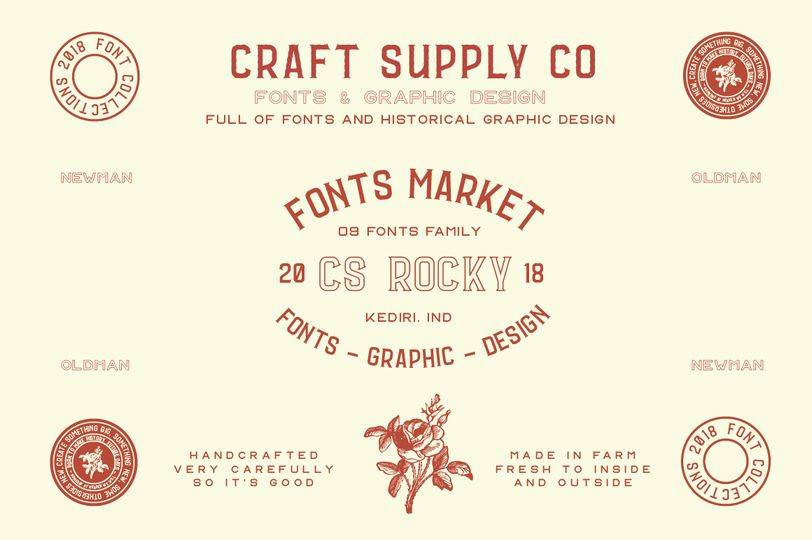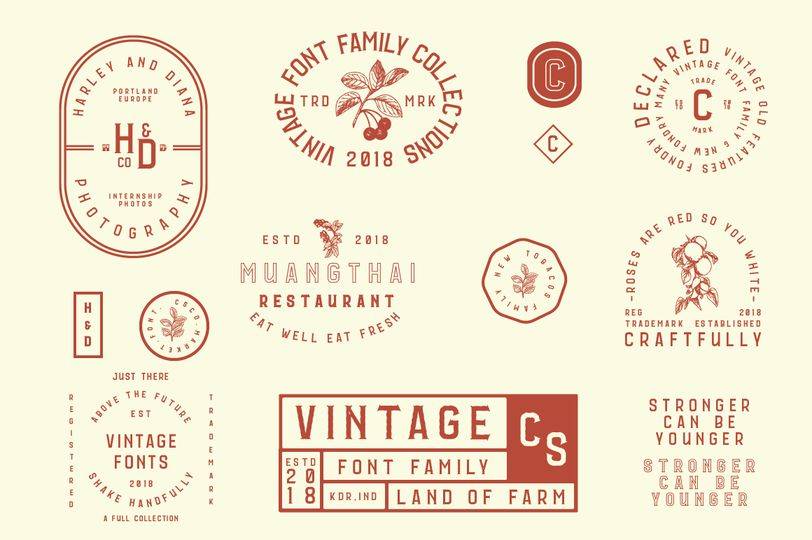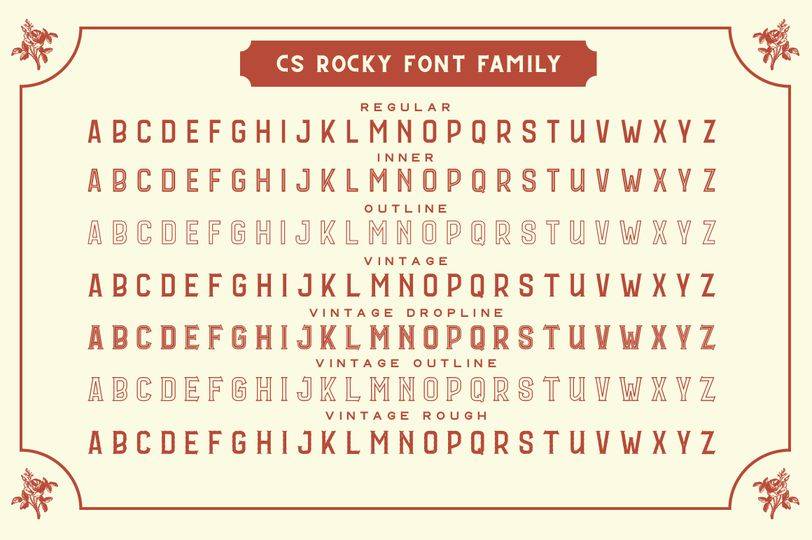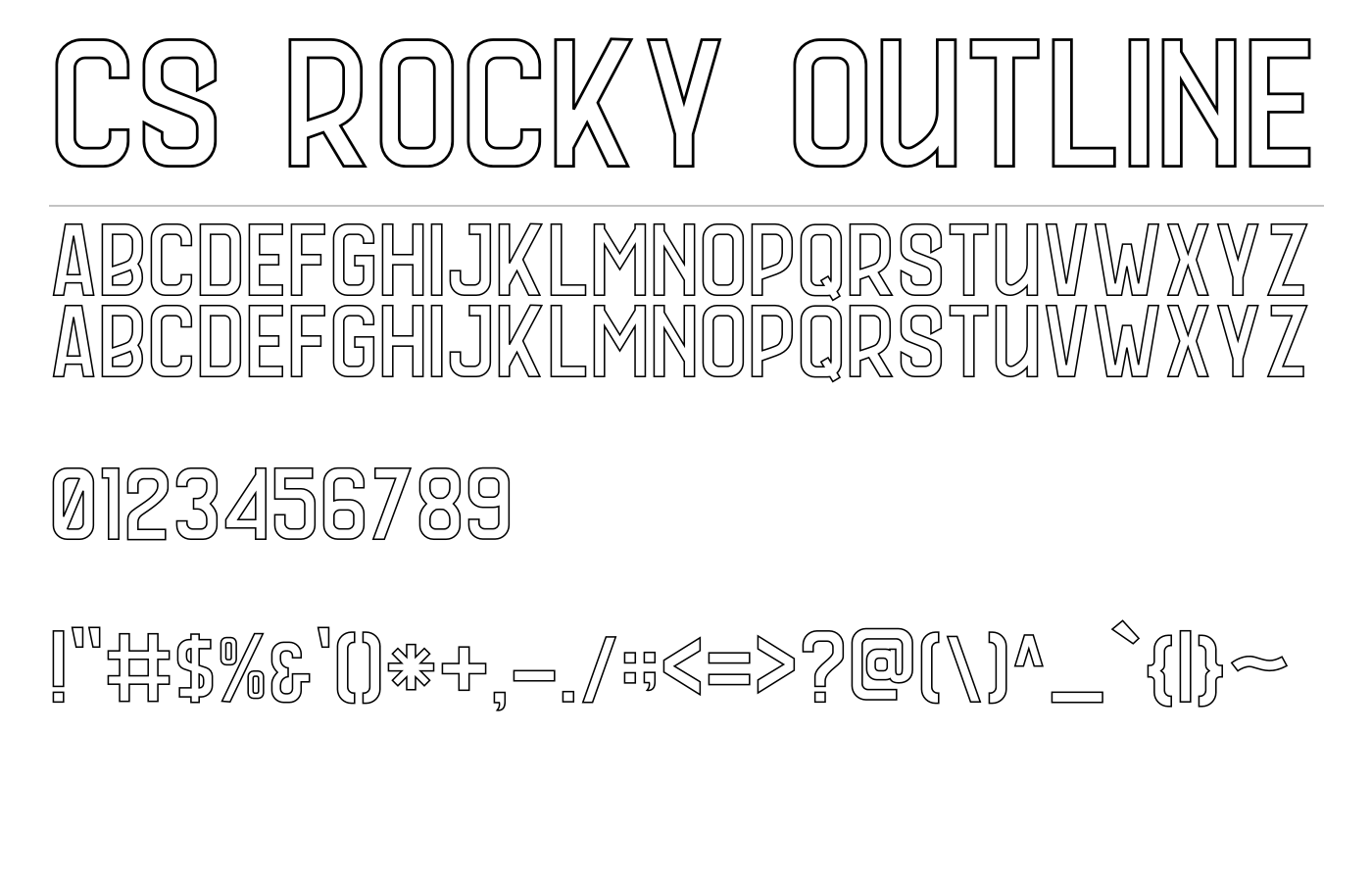
CS Rocky is a bold, condensed sans-serif outline font with a modern and geometric style. Its clean, all-uppercase letterforms and distinct outline treatment give it a strong yet airy presence, making it ideal for sporty, tech, or futuristic branding, headlines, and display use where impact and clarity are key. This font works well on posters, logos, and websites that seek a sleek, modern edge with a touch of uniqueness.
CS Rocky
About CS Rocky
| Font family | CS Rocky |
| Release date | 2018-01-04 |
| Designer | Craft Supply Co. |